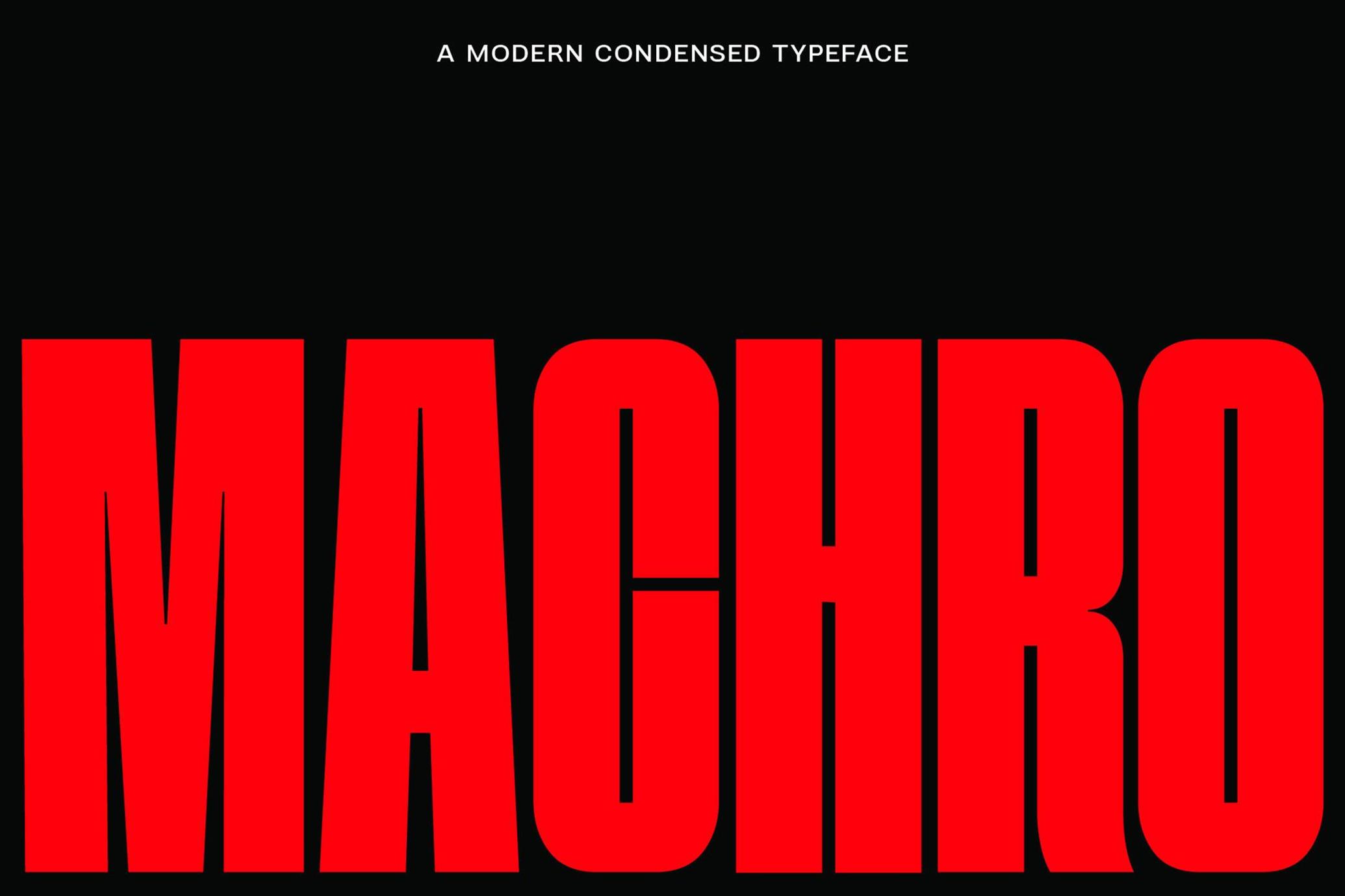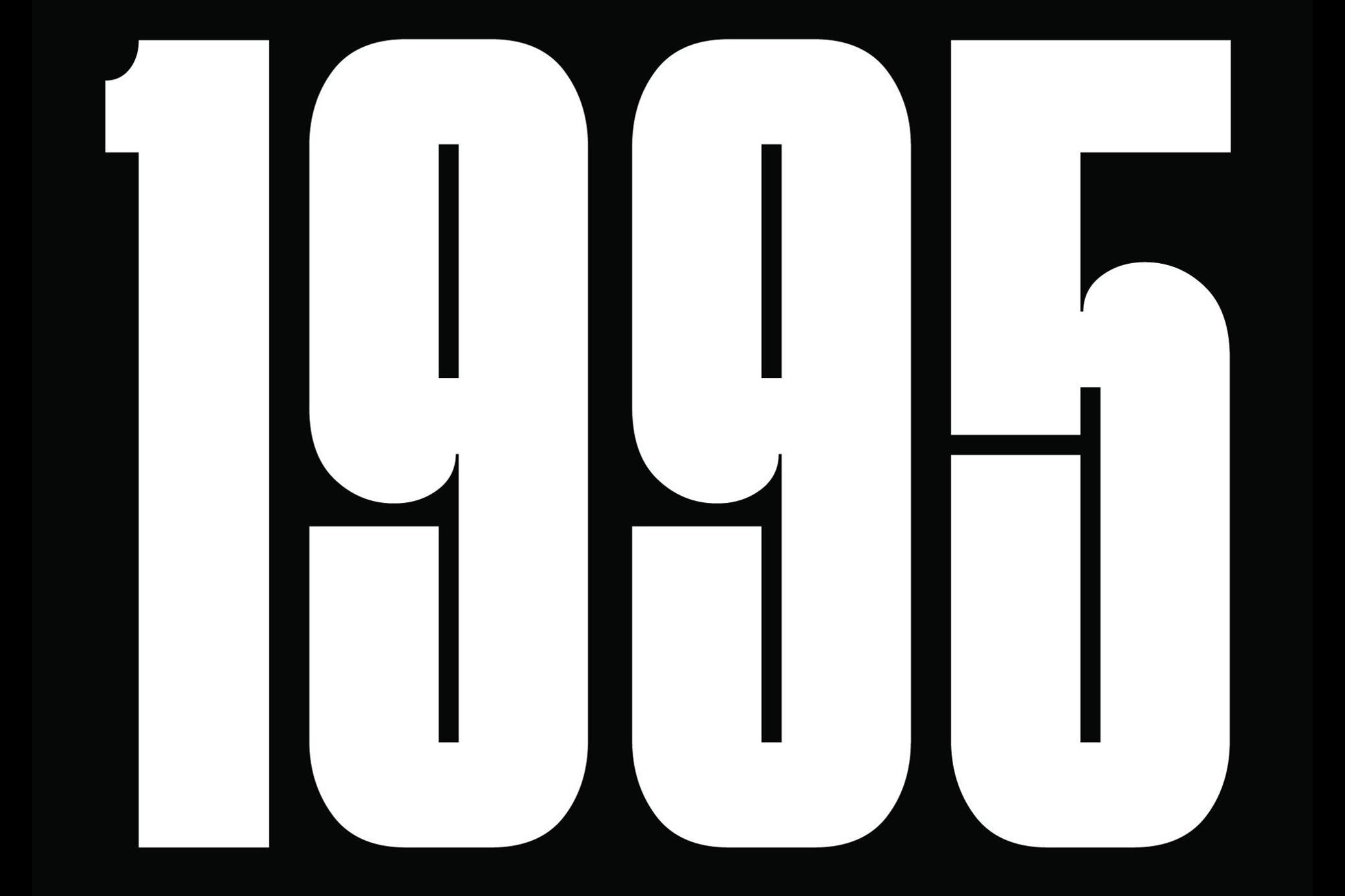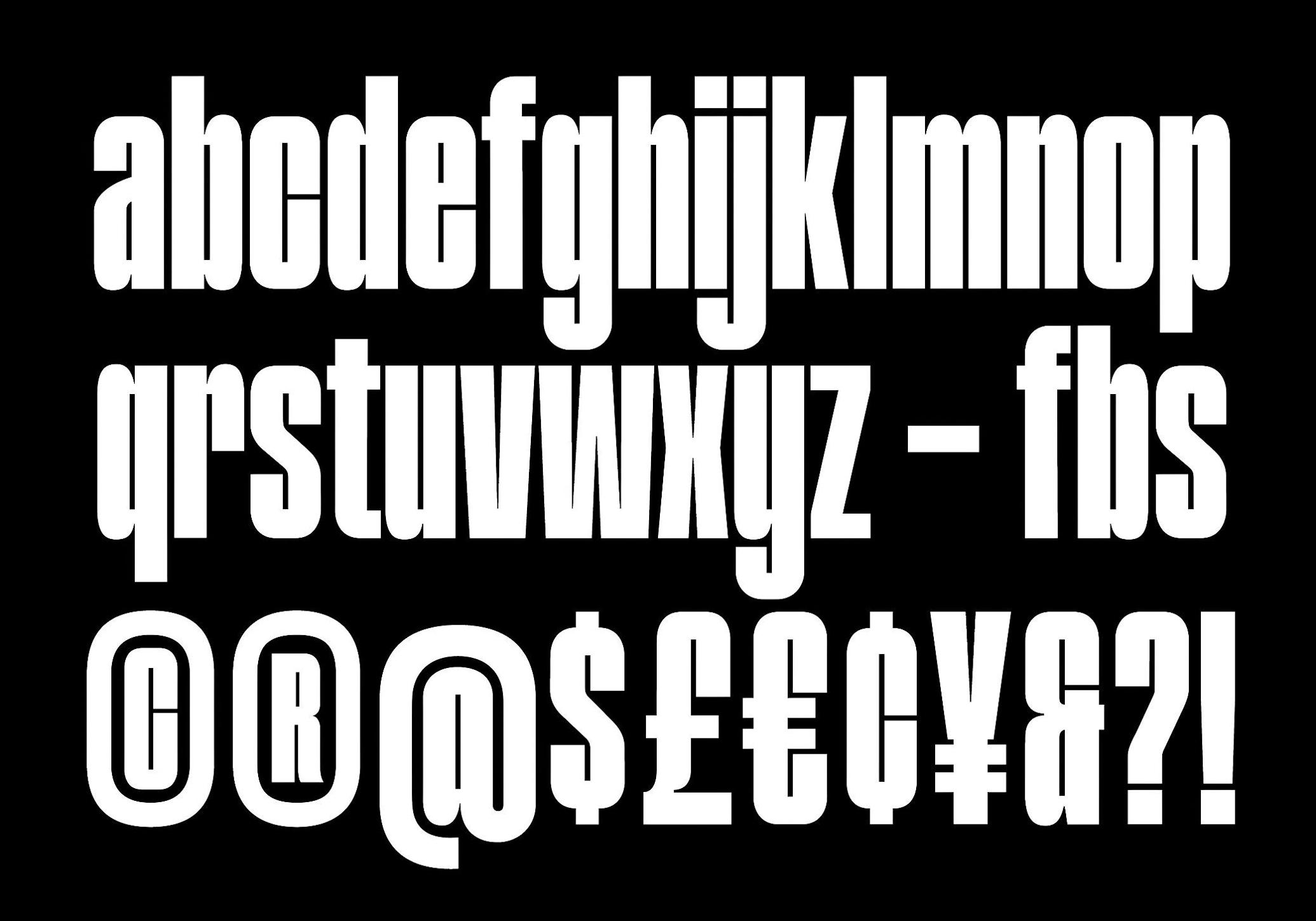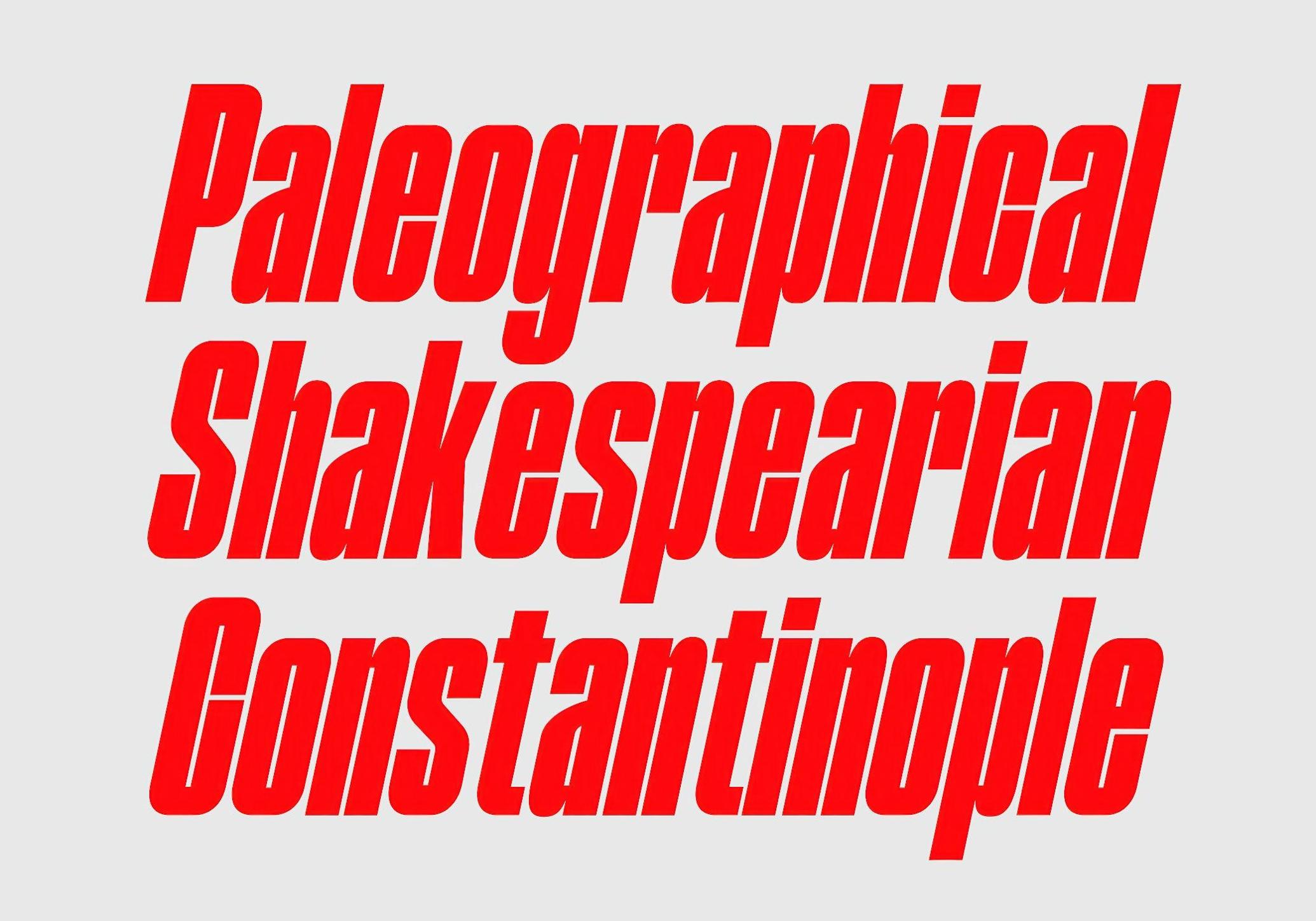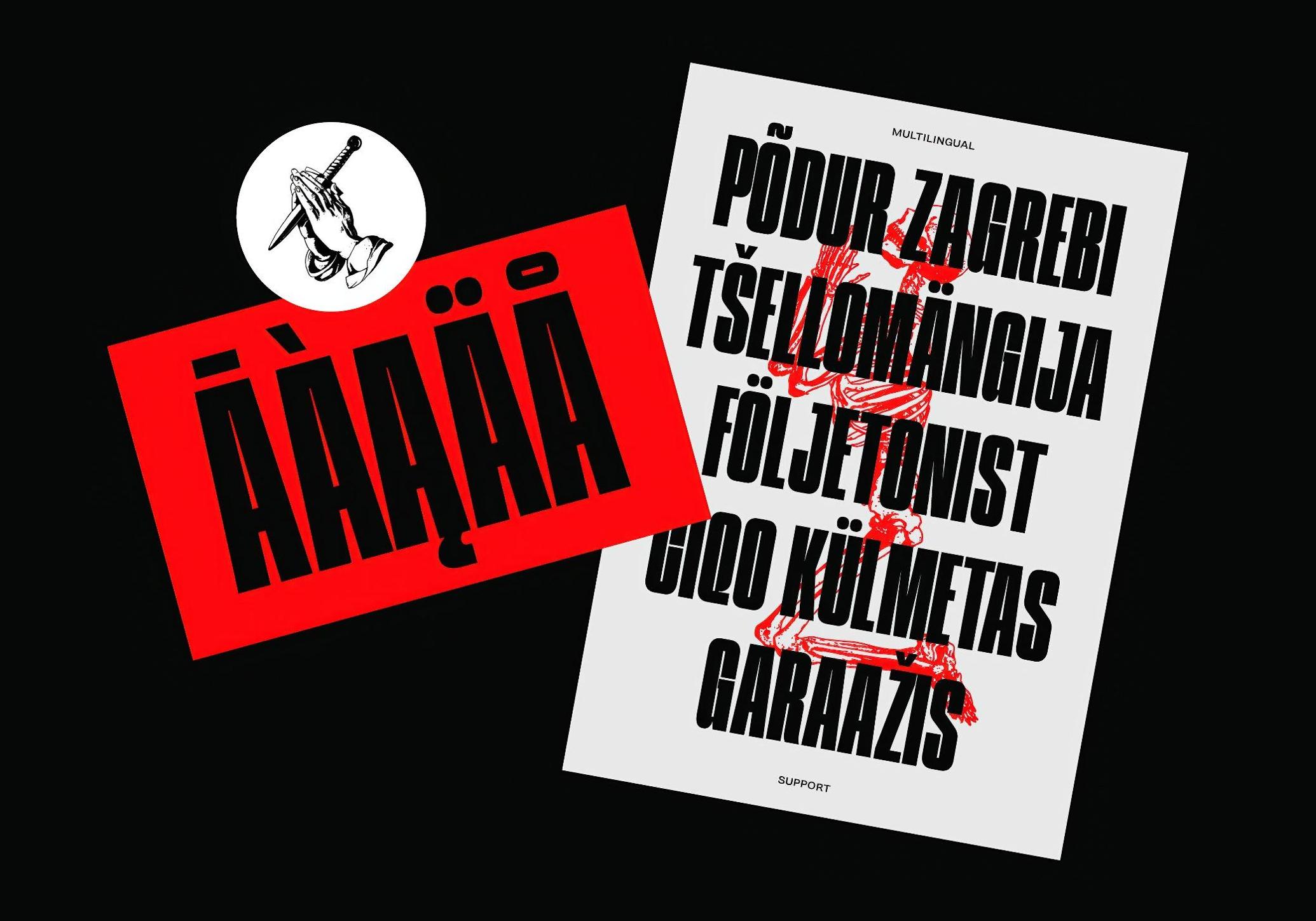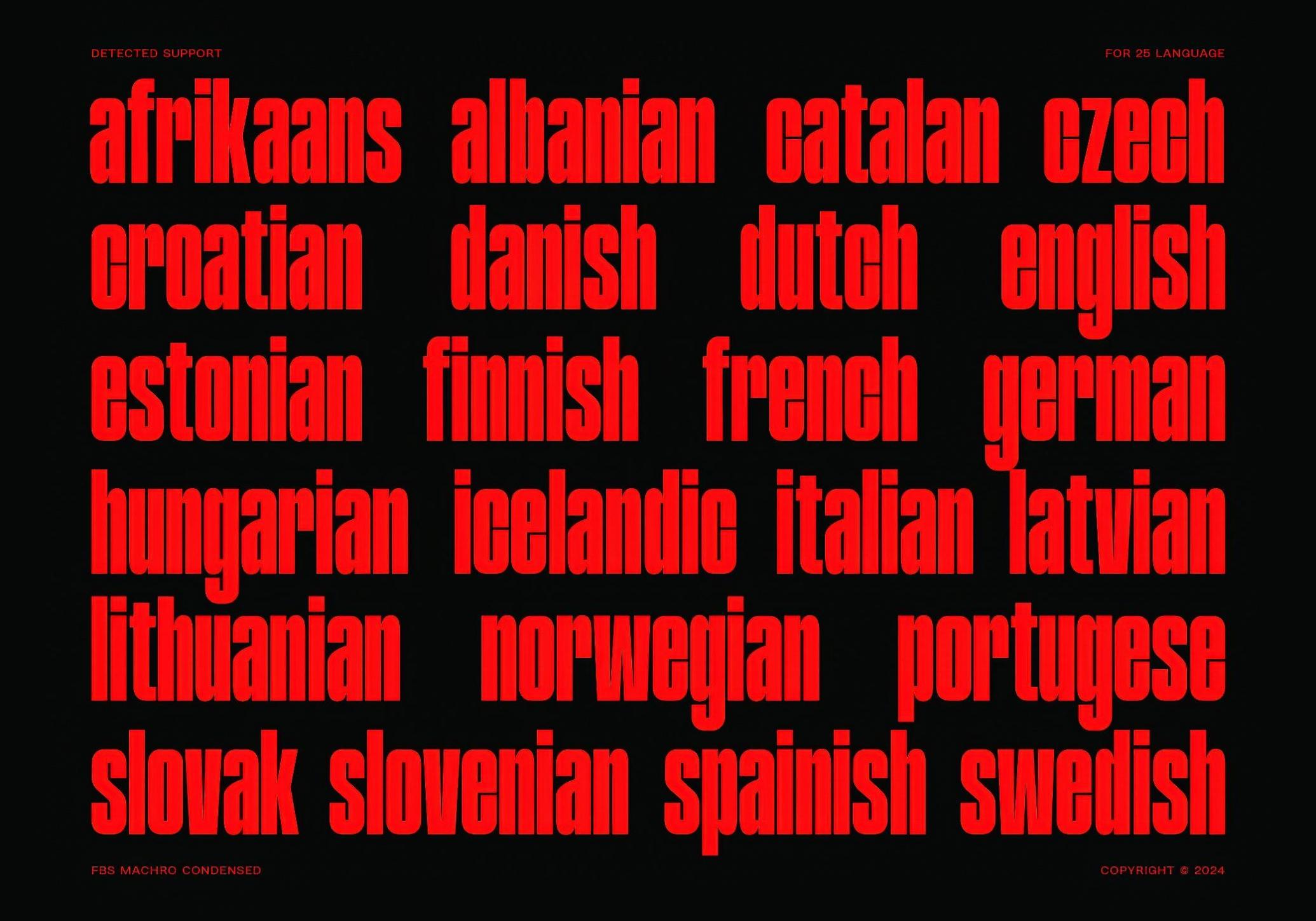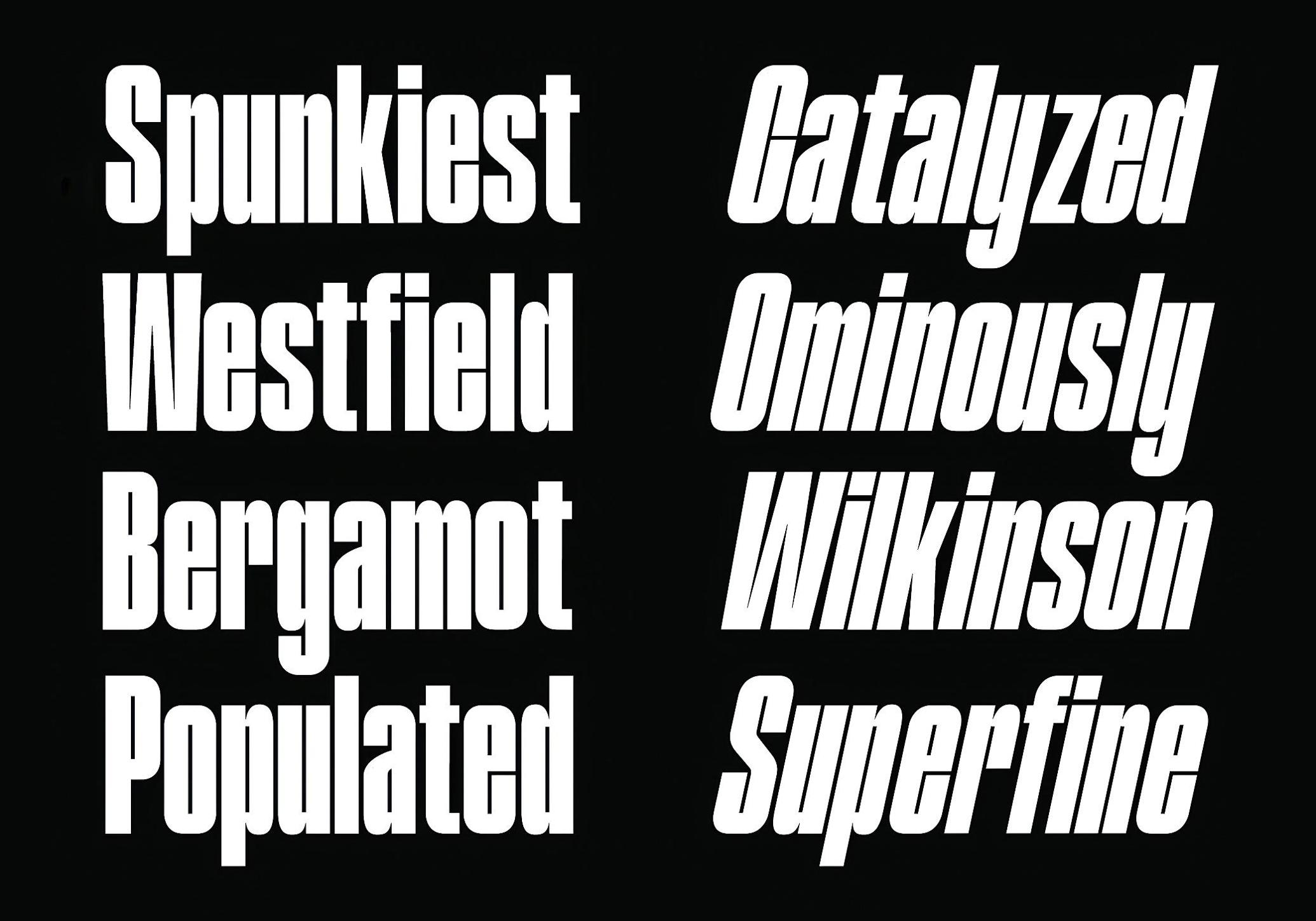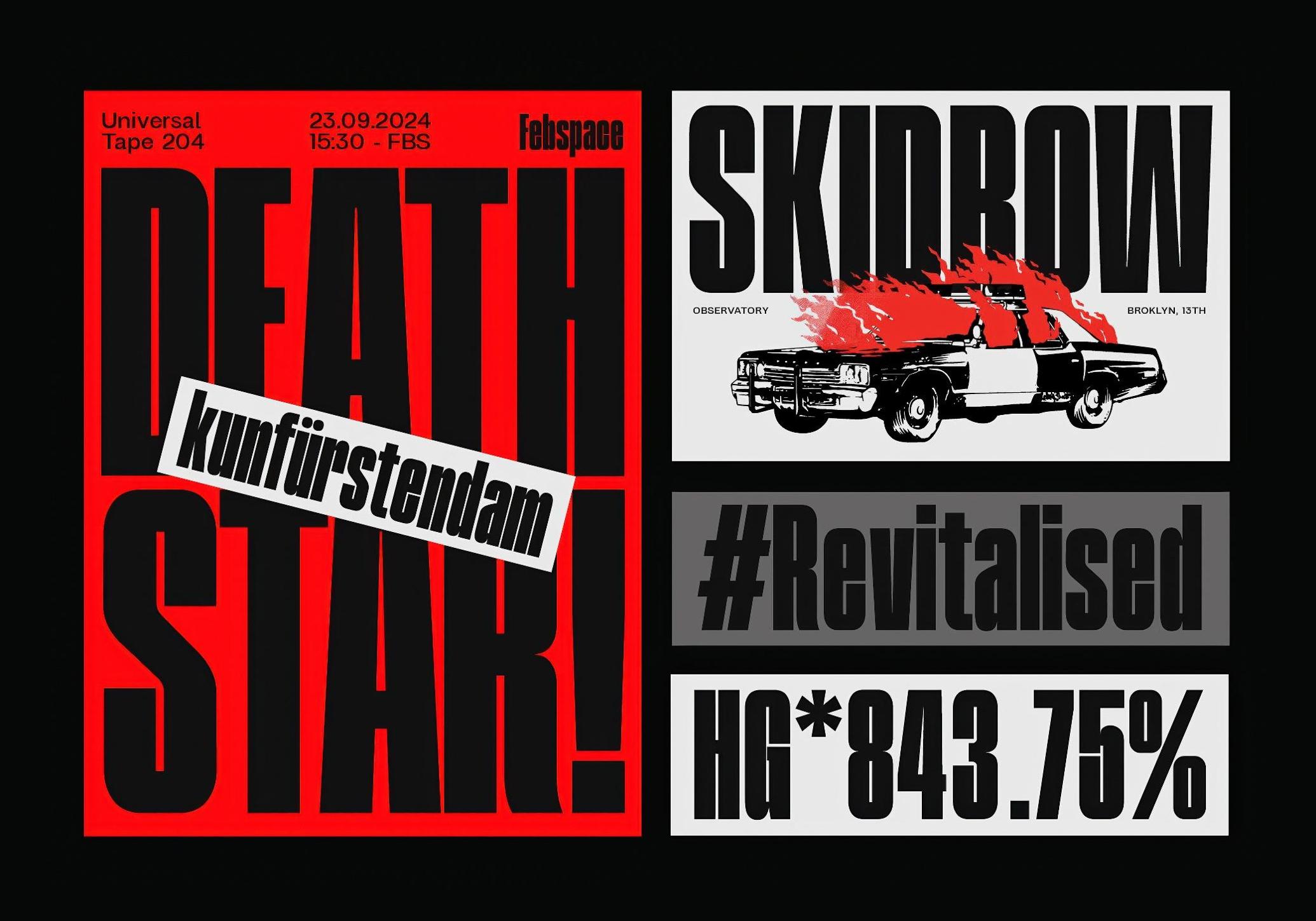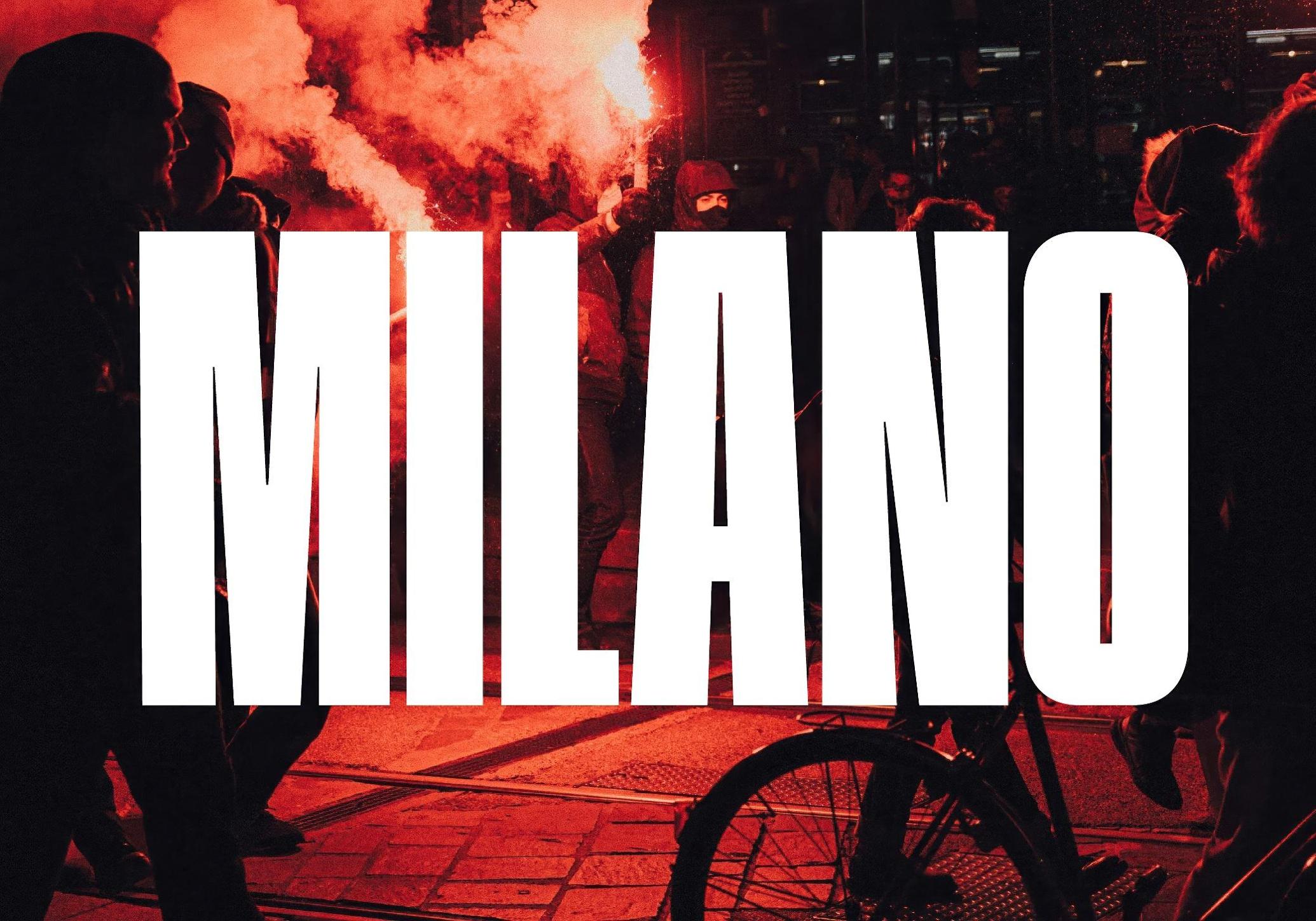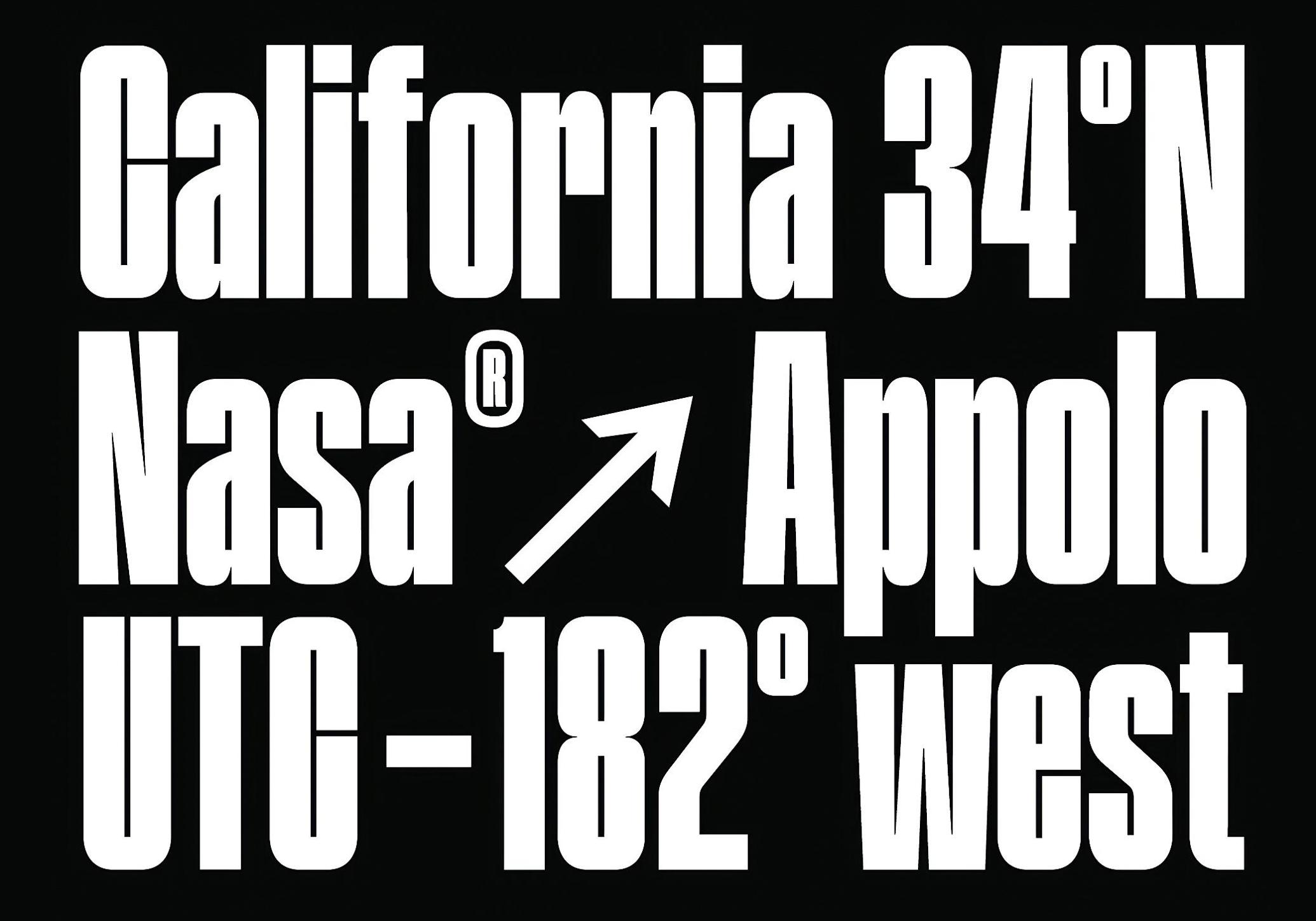
FBS Machro Font
This modern font comes with clean, geometric lines reflecting strict functionality and technical precision. Its finely tuned proportions combine compact character width with outstanding legibility. FBS Machro supports a complete set of uppercase and lowercase letters, international characters, punctuation, numbers, and symbols. It comes in two styles — Regular and Slanted — allowing for dynamic and versatile use across different design contexts, e.g., logos, posters, social media, or banner ads.